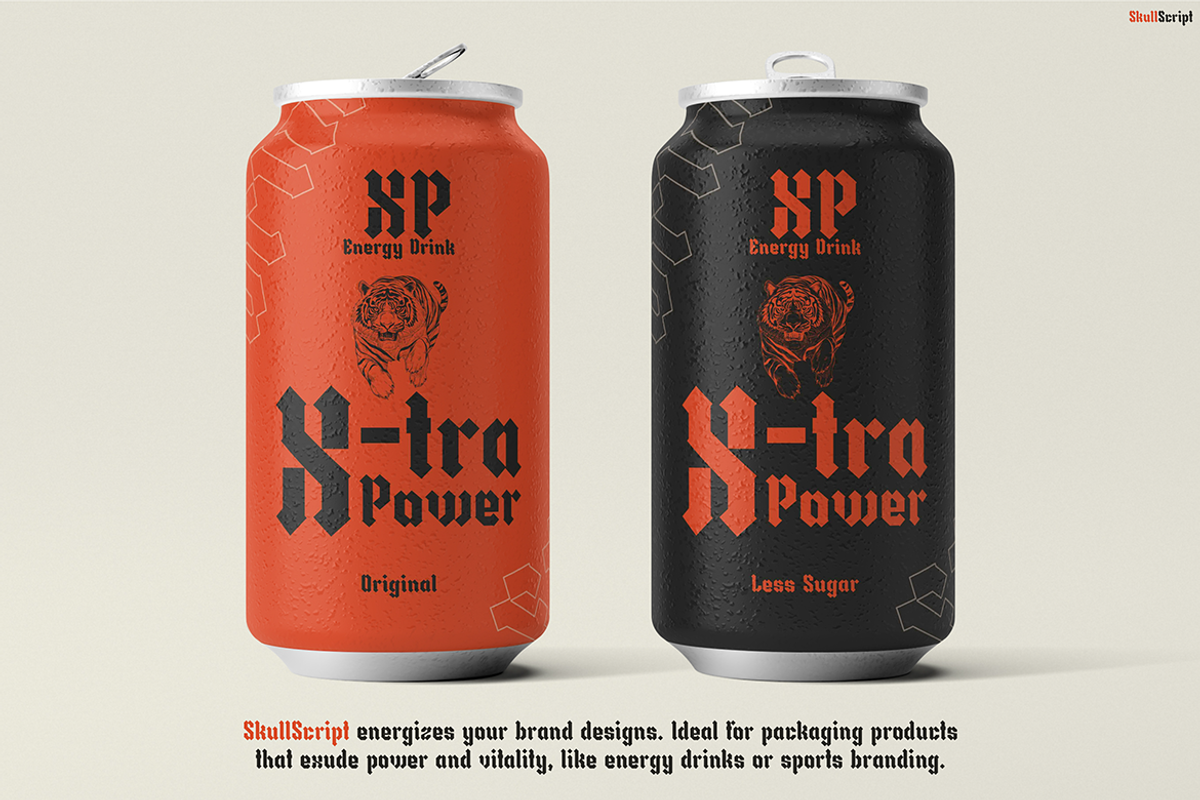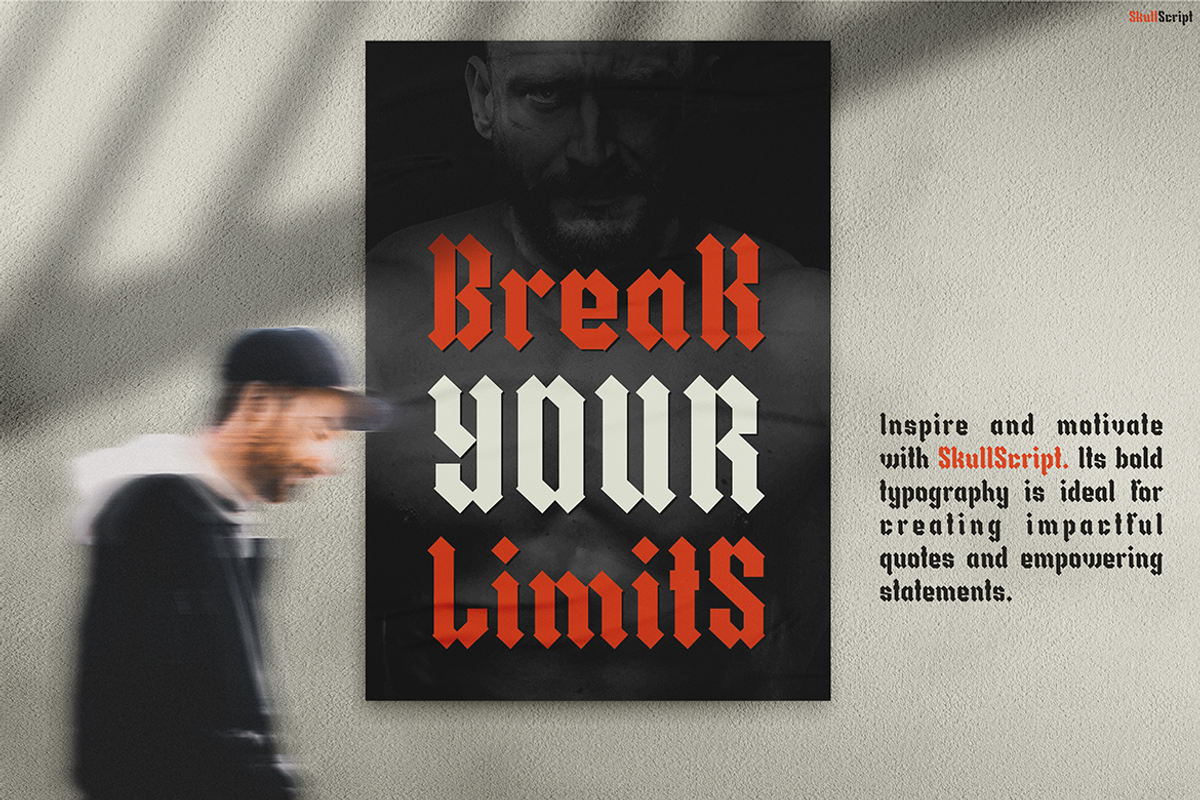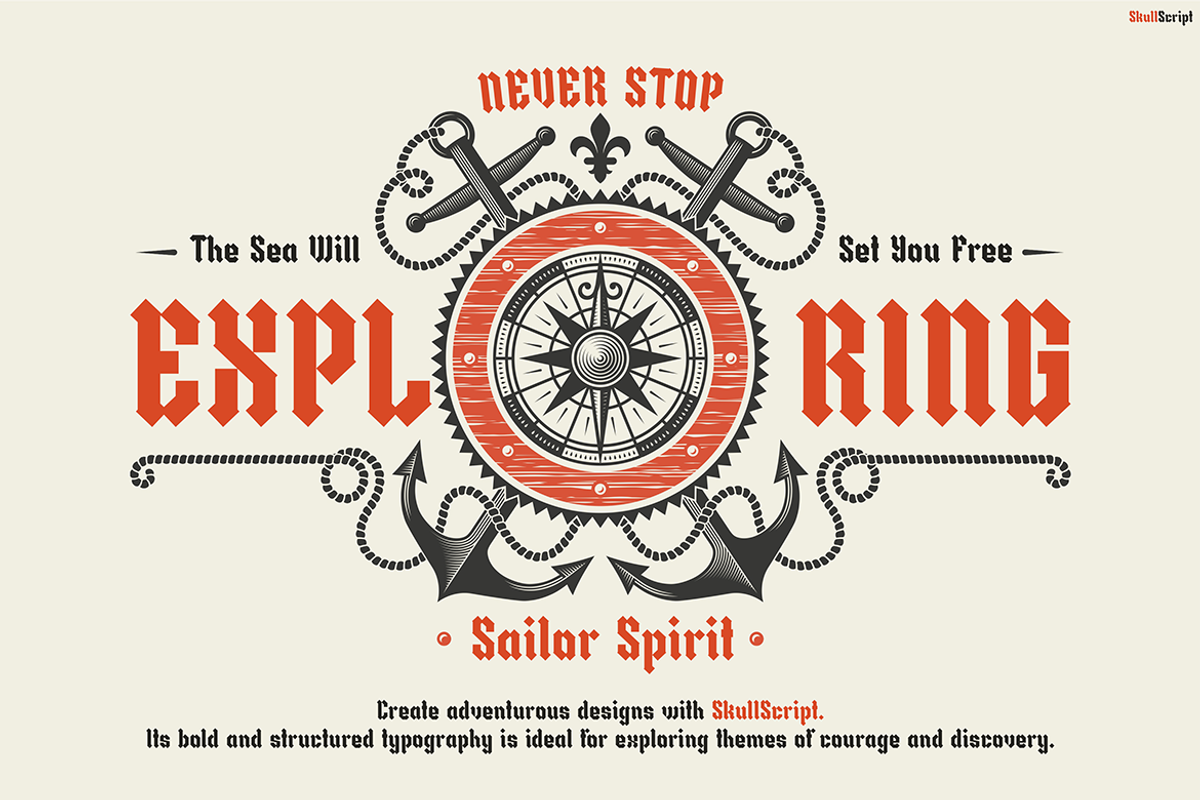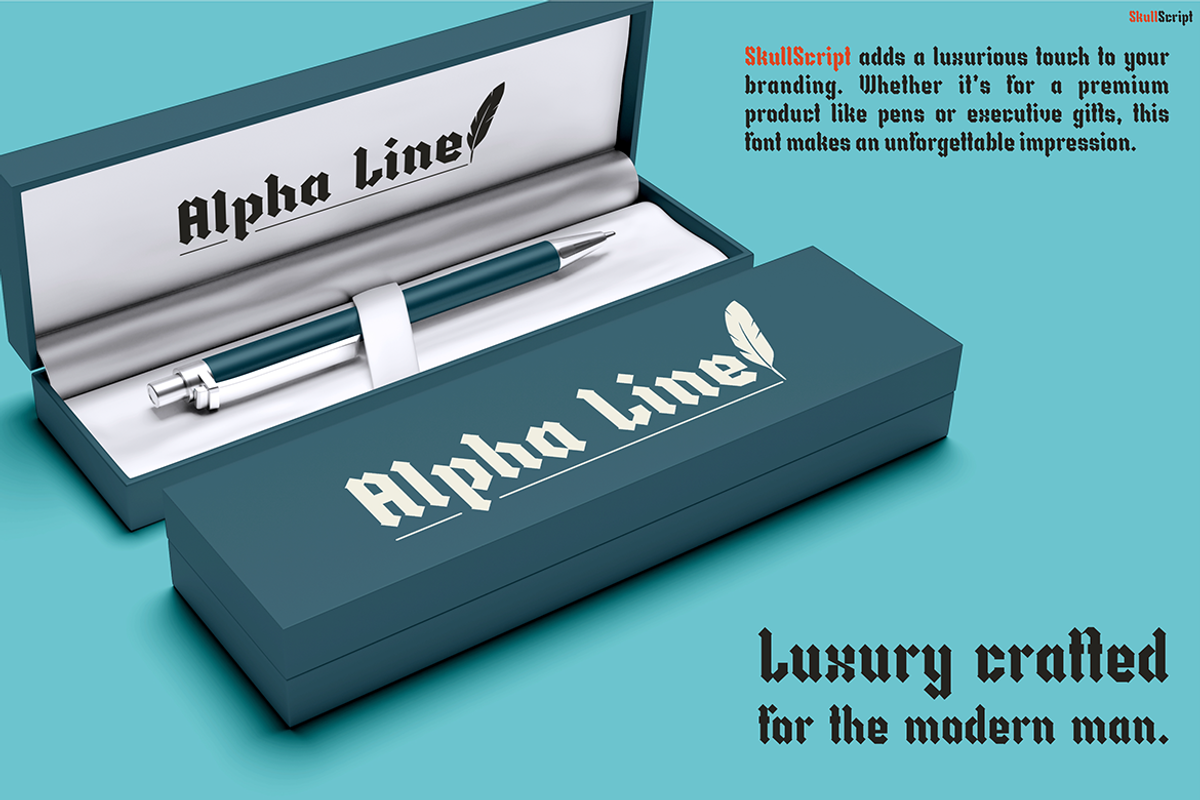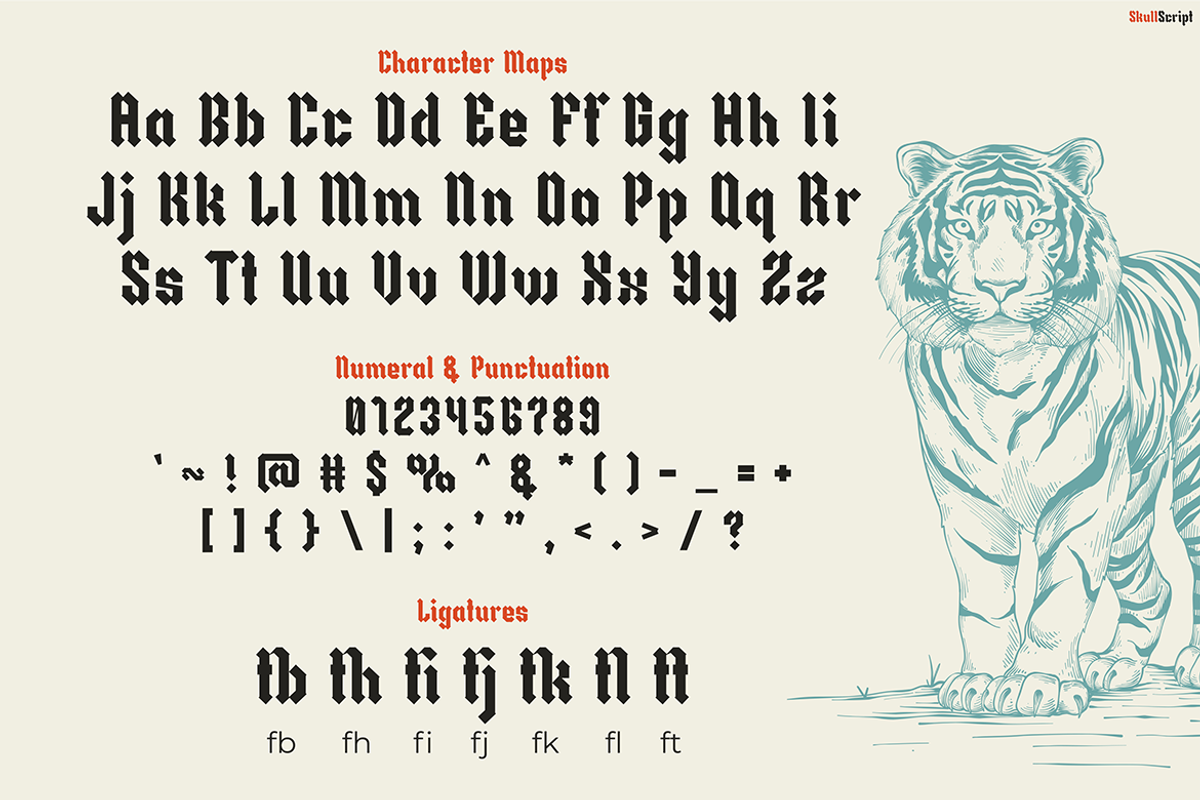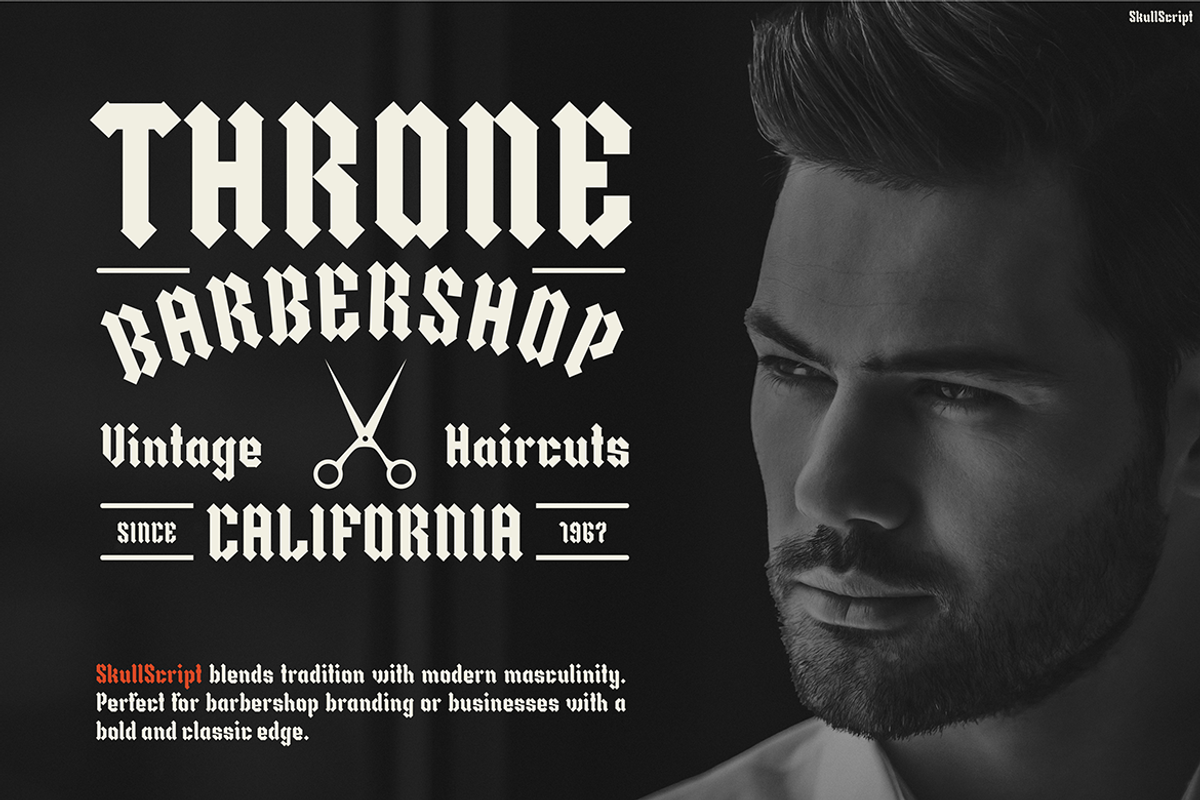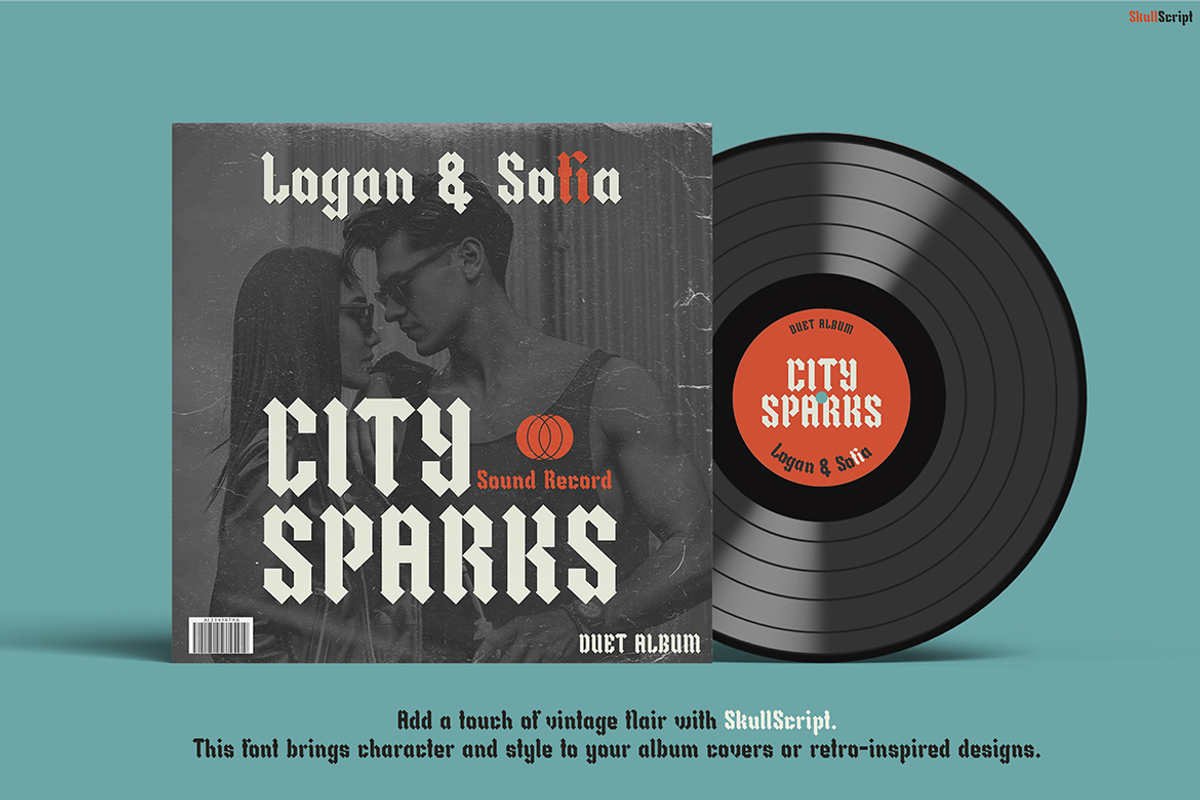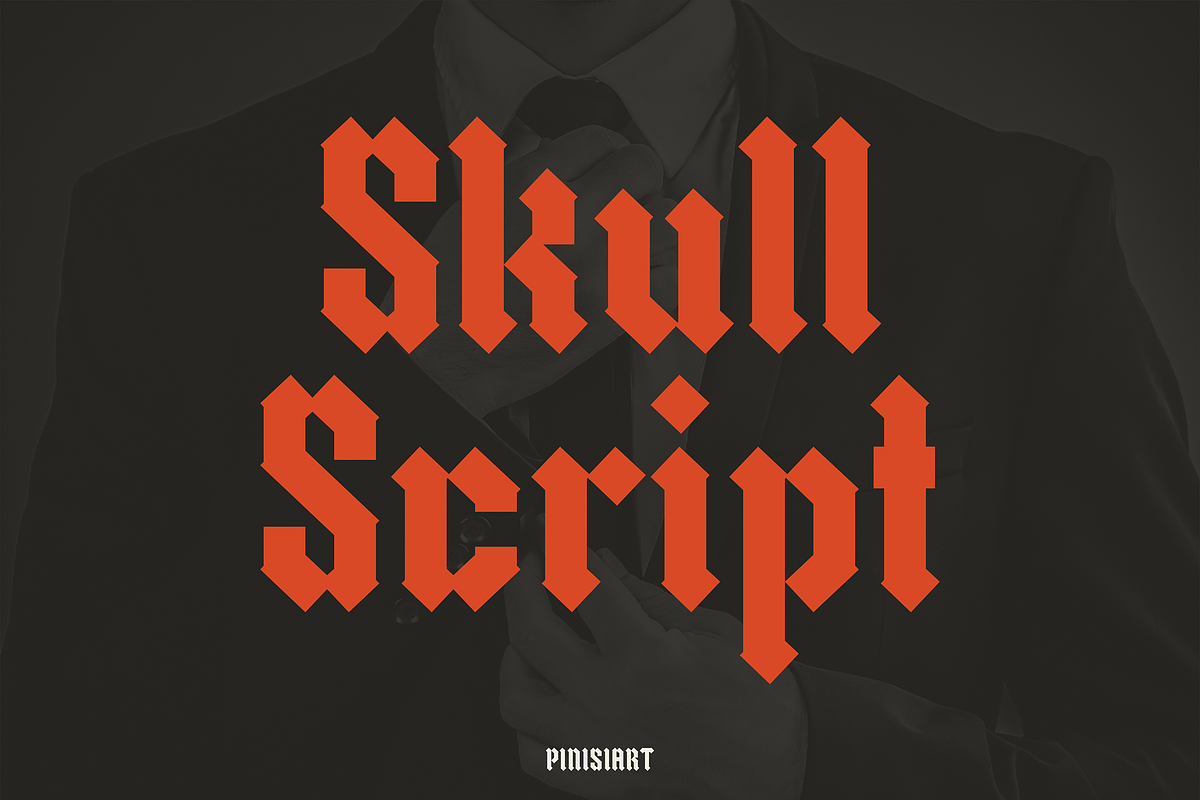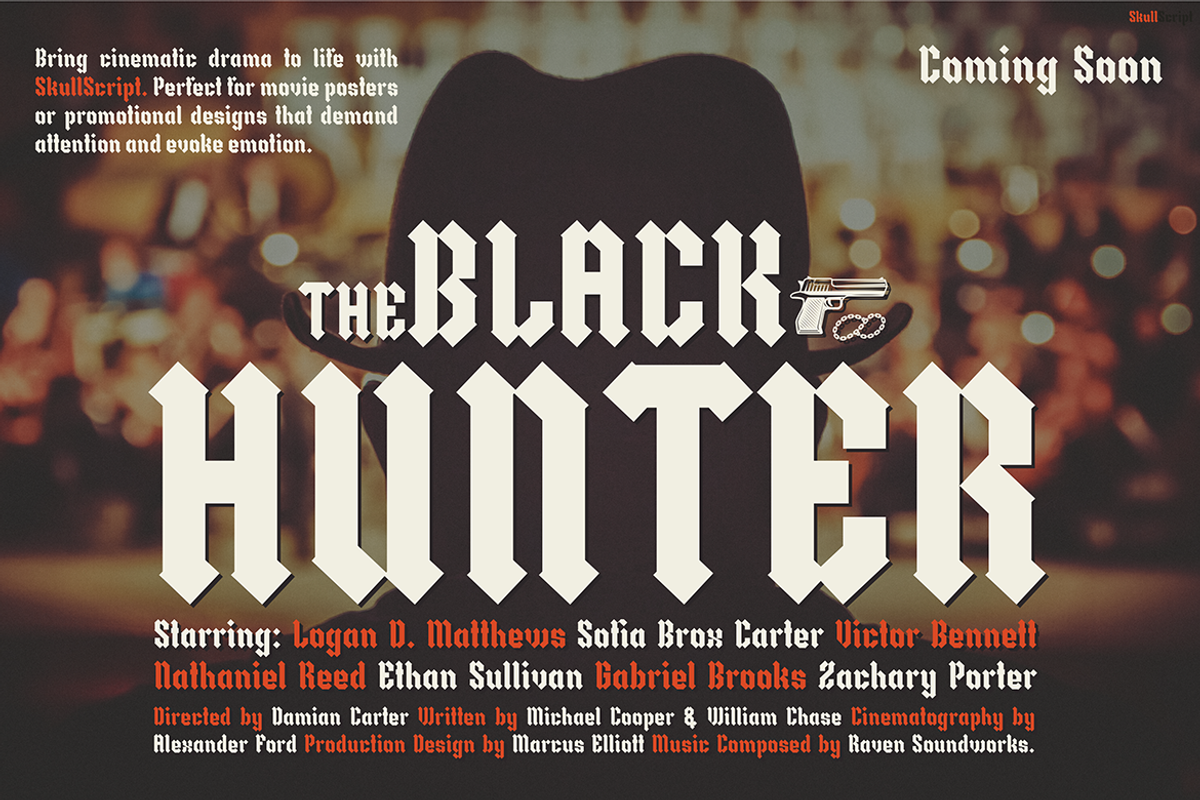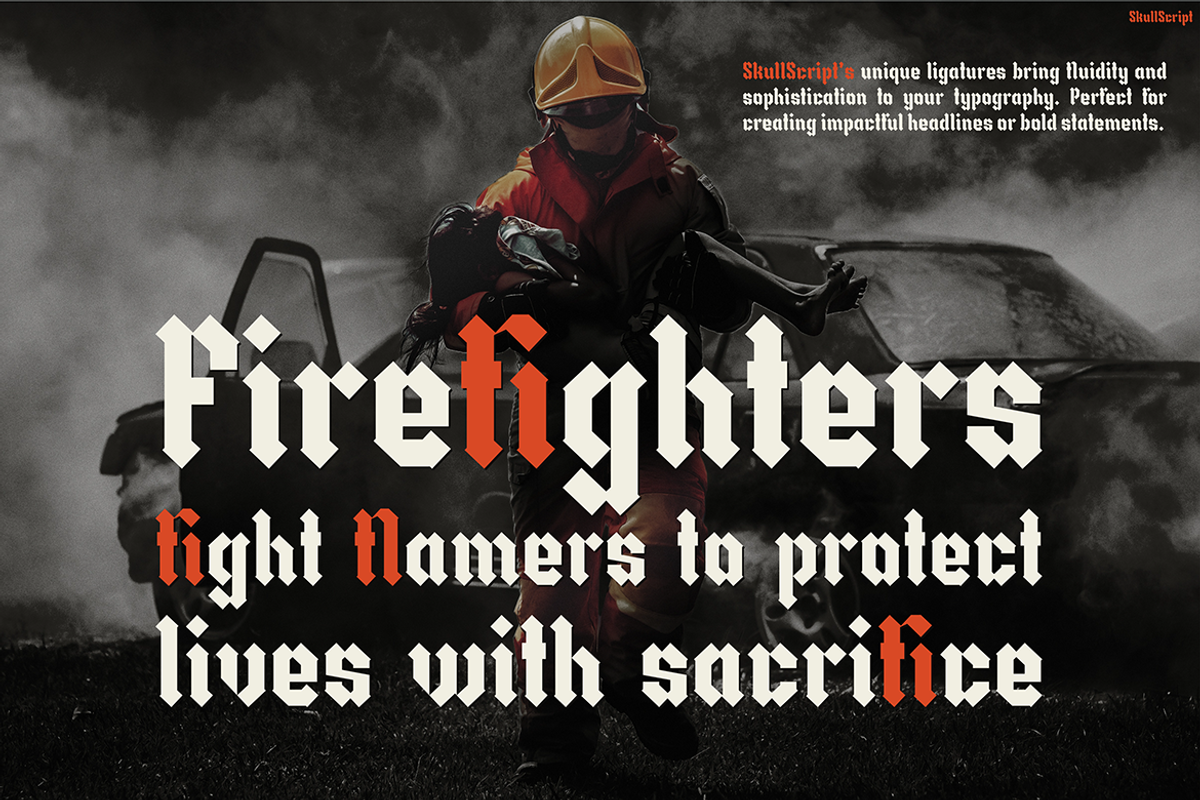
Skullscript
Tattoo Font Skullscript is a bold typeface that seamlessly blends vintage charm with a modern edge. Inspired by Gothic calligraphy and traditional tattoo lettering, it offers timeless sophistication. Moreover, its sharp, angular shapes and bold strokes create a dramatic and impactful look. This font is perfect for projects that demand a strong and expressive visual identity.
In addition to its striking design, Skullscript combines traditional typography with a contemporary twist, making it highly versatile. Its intricate details and sharp contrasts not only enhance readability but also deliver a commanding presence. For instance, you can use it for album covers, retro-inspired posters, or branding for tattoo studios. Furthermore, the mix of vintage aesthetics and modern usability makes it a standout choice for designs that need to capture attention.
Additionally, this font’s robust structure ensures it works well across digital and print media. From sleek digital graphics to high-quality prints, Skullscript adapts seamlessly. Therefore, it becomes a powerful tool for designs that aim to leave a lasting impression while maintaining visual clarity.